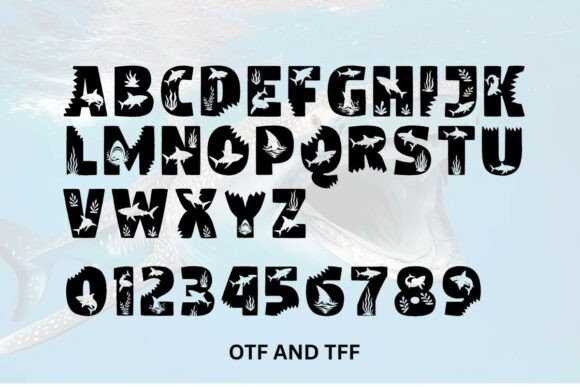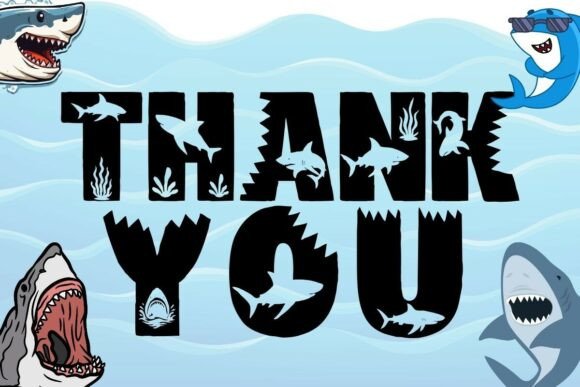
Introduction to Shark Bites Font
Take a big bite out of boring designs with the Shark Bites Decorative Font.
🦈 This bold, playful, all-caps decorative display typeface is inspired by the sharp edges of shark teeth, making it the perfect choice for eye-catching projects With its strong presence and fun style, Shark Bites is ideal for T-shirts, children’s designs, party invitations, posters, logos, and more.
Shark Bites Font offers exceptional quality and versatility, making it a valuable addition to your design toolkit. Whether you’re creating for personal projects or commercial use, Shark Bites Font delivers professional results.